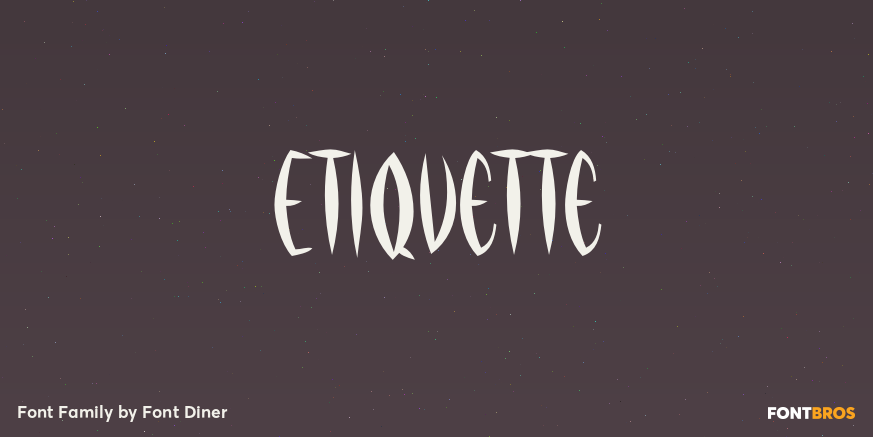
HomeFont BrosEtiquette Font Bros Etiquette FacebookXPinterestWhatsApp 1 of 1 About Etiquette Tall and thin wearing nothing but personality on it\’s sleeve, it\’s the unique offbeat sans-serif we call Etiquette  DOWNLOAD ON FONT BROSThis font is sold and delivered by Font Bros. Font Canyon may earn a commission if you buy through this link. People also explored Lattice Font Pezzo Snowdays Font Dear Mother Yellow Font Stone Hearts Font Ashemore Softened Super Family Angelove Font Makes Font 493 0 TagsEtiquette Font Previous articleScamNext articleKillernuts LEAVE A REPLY Cancel reply Comment: Please enter your comment! Name:* Please enter your name here Email:* You have entered an incorrect email address! Please enter your email address here Website: Save my name, email, and website in this browser for the next time I comment. Personal Use Free Foolish Hand Personal Use Free Read more about this font Penelope Brush Script Font Personal Use Free Read more about this font Waverly Date Personal Use Free Read more about this font Rise of Kingdom Personal Use Free Read more about this font BLOG How to Cut Any Font on Cricut: Convert a Font to SVG (Free) Turn any font into a clean SVG so it cuts crisp on Cricut - a quick 3-step workflow using a free font-to-SVG tool. Transform Your Website: Elevate Your Typography with 7 Best Web Font Generators To increase your work productivity, choose the most readable fonts. Using Fonts in Digital Marketing: Tips to Strengthen Your Brand Identity